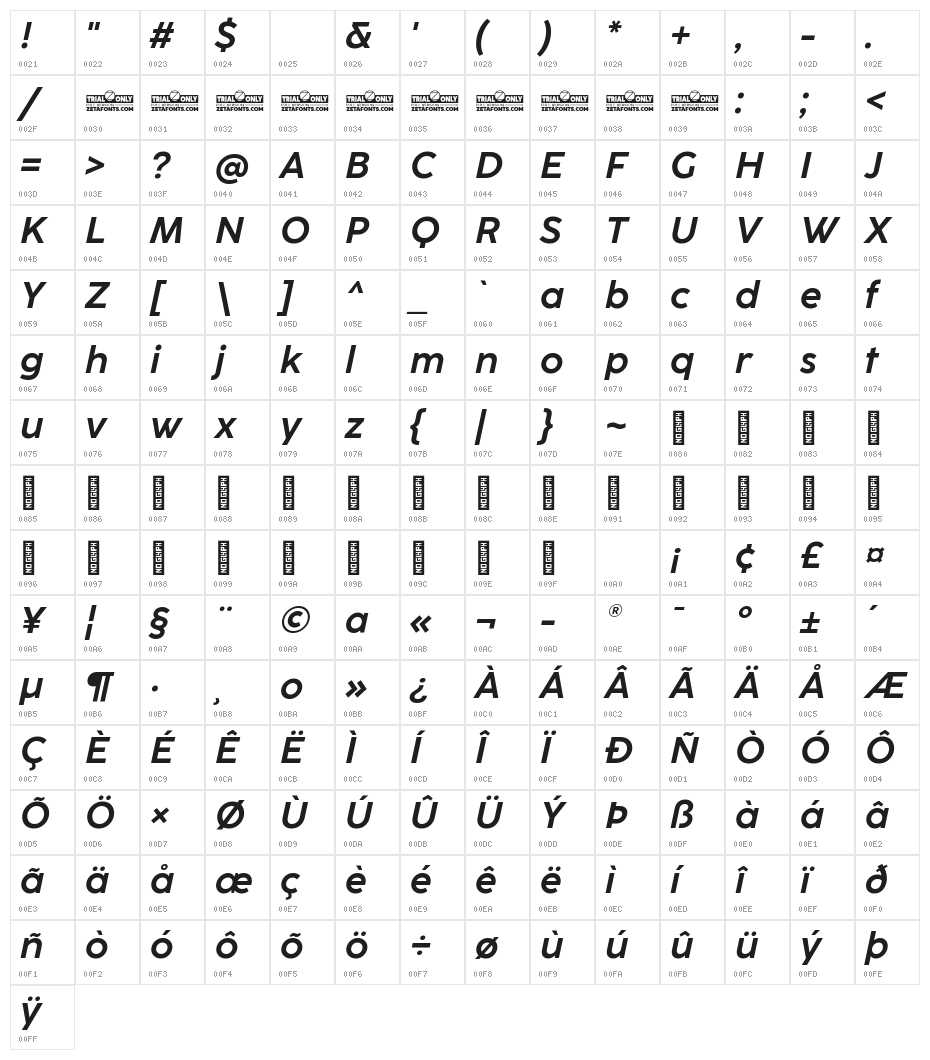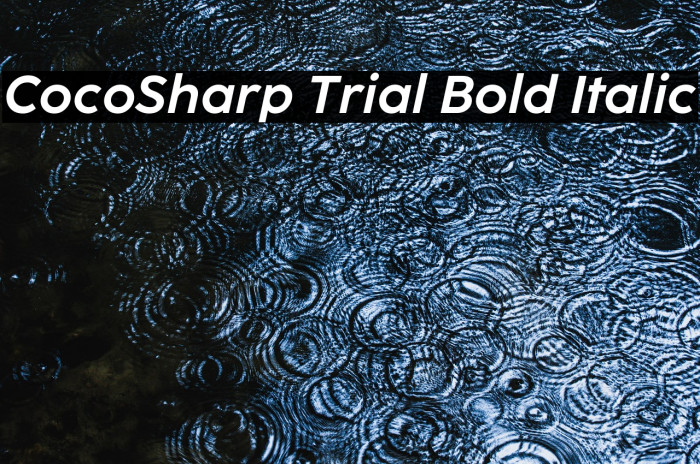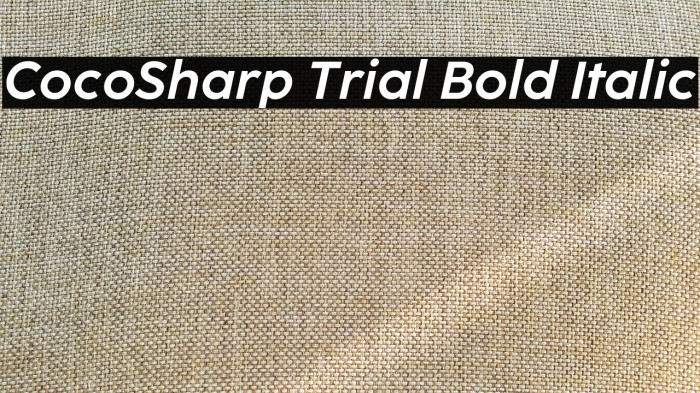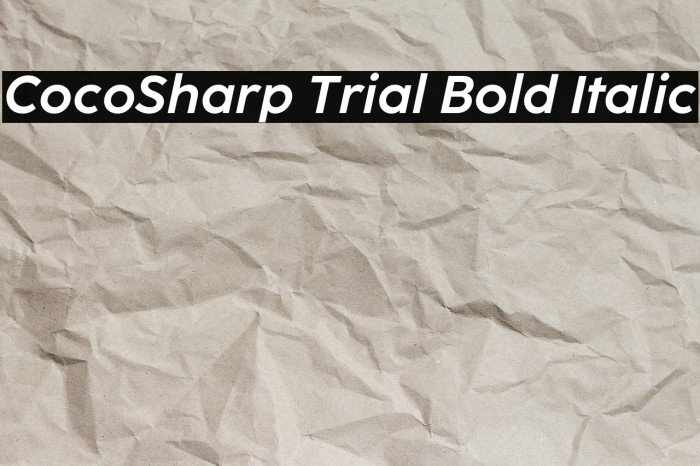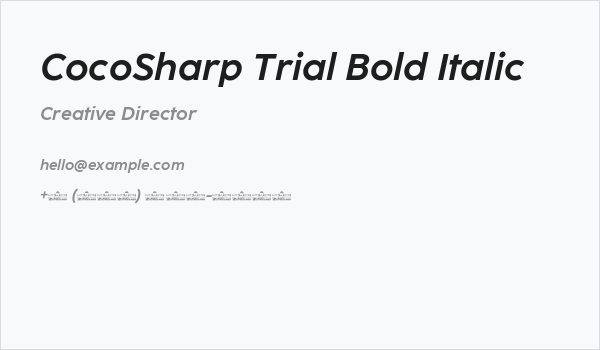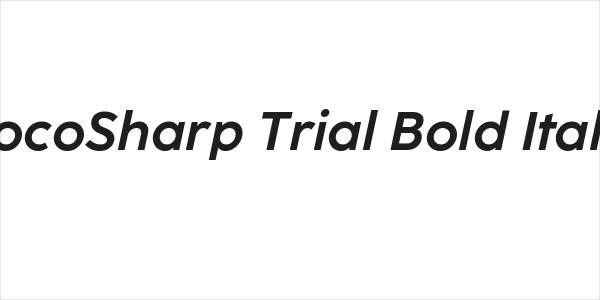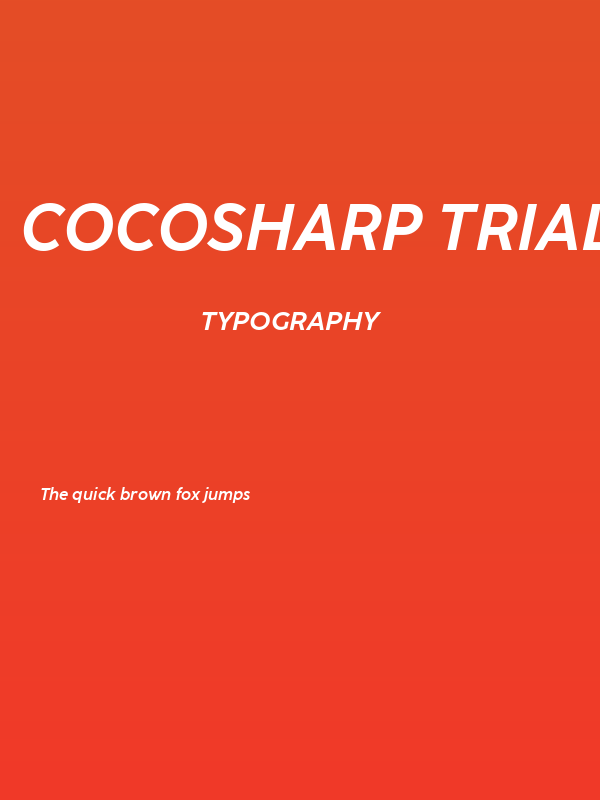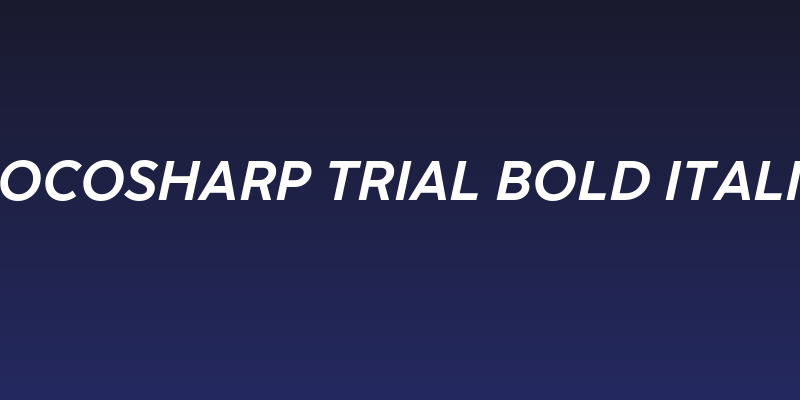
CocoSharp Trial Bold Italic Font
CocoSharp Trial Bold Italic Description
This typeface exhibits a modern and sleek design with a bold and italicized style. The characters are slightly slanted, giving a dynamic and forward-moving appearance. The strokes are consistent in thickness, providing a uniform look across all characters. Uppercase and lowercase letters are well-proportioned, maintaining readability and aesthetic appeal. The numerals and special characters are designed to match the overall style, ensuring cohesion throughout. This font is suitable for various applications, offering a contemporary and professional vibe.